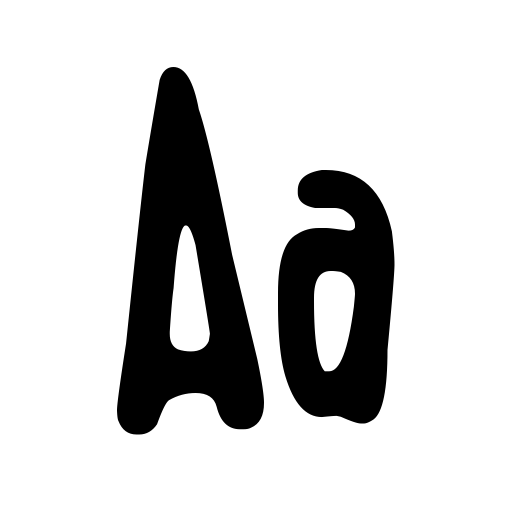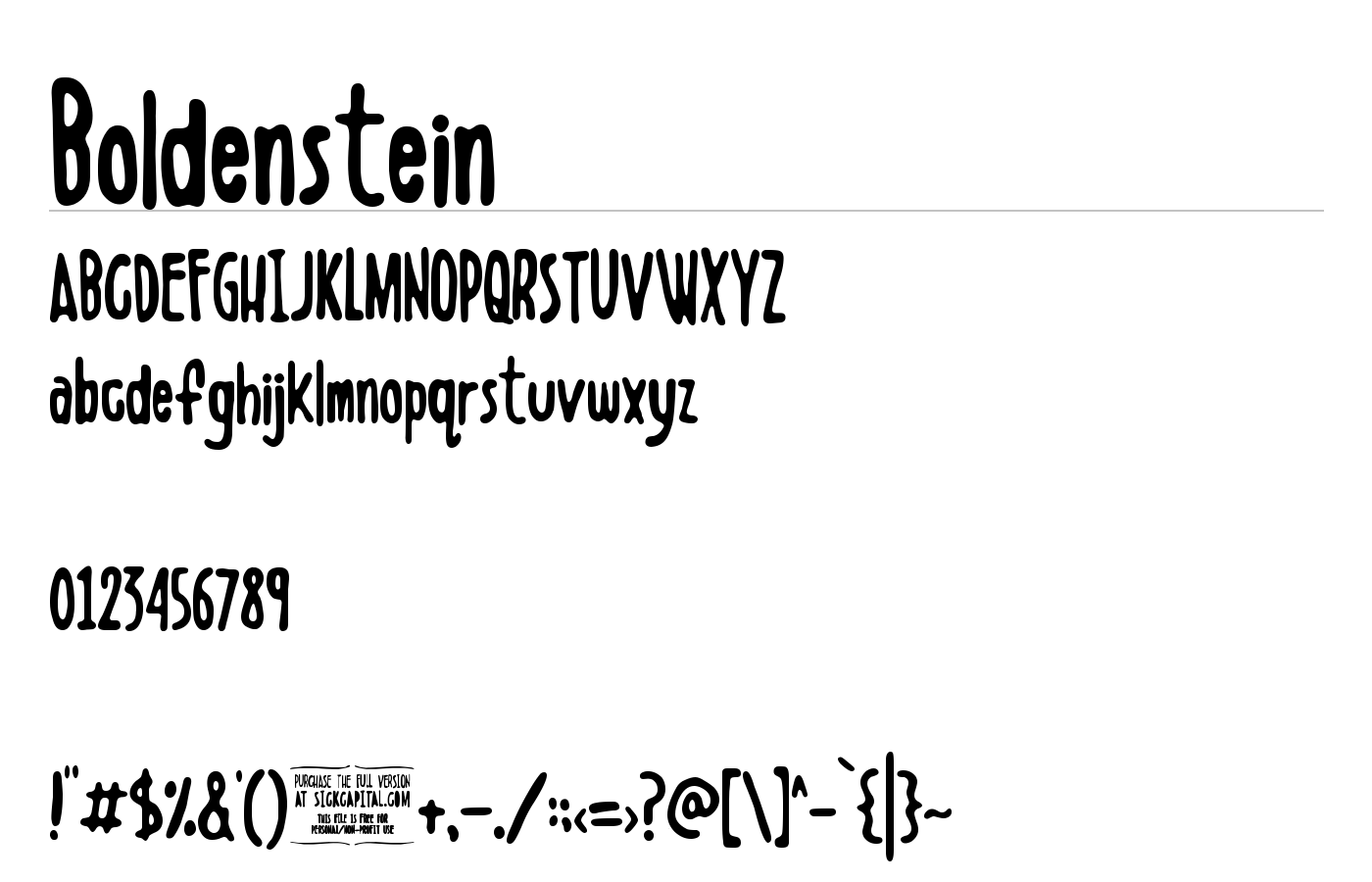
Boldenstein is a playful, bold sans serif font with a hand-drawn, slightly quirky feel. Its tall, narrow letterforms and uneven stroke widths give it a casual and friendly personality, perfect for creative and informal projects. This font works great for headlines, posters, and branding that wants to convey approachability and fun.
Boldenstein Font
About Boldenstein Font